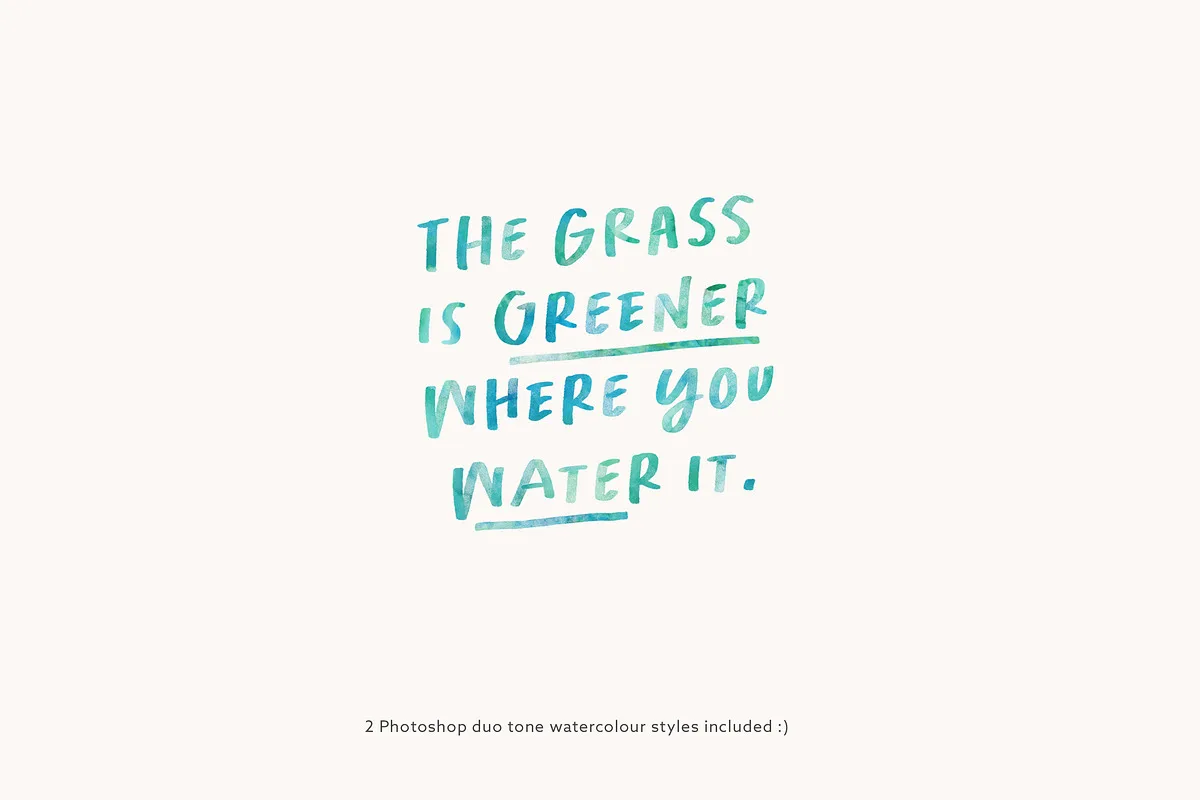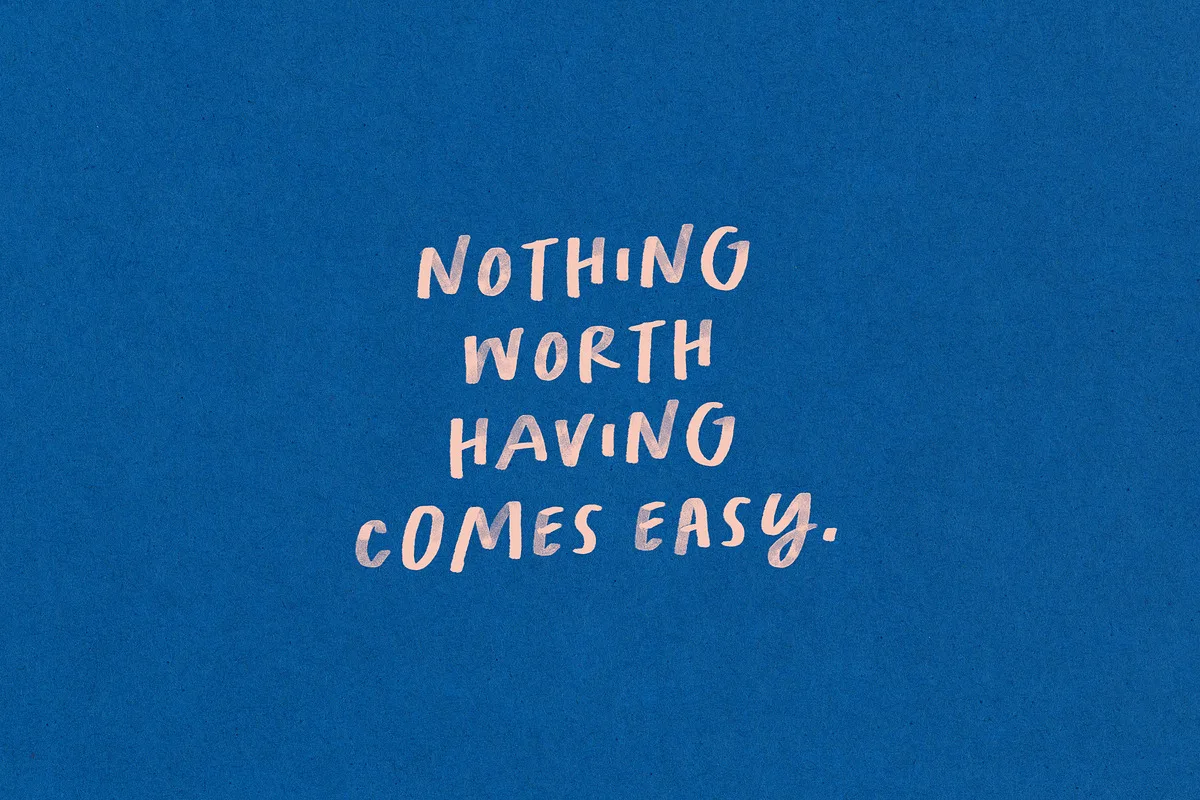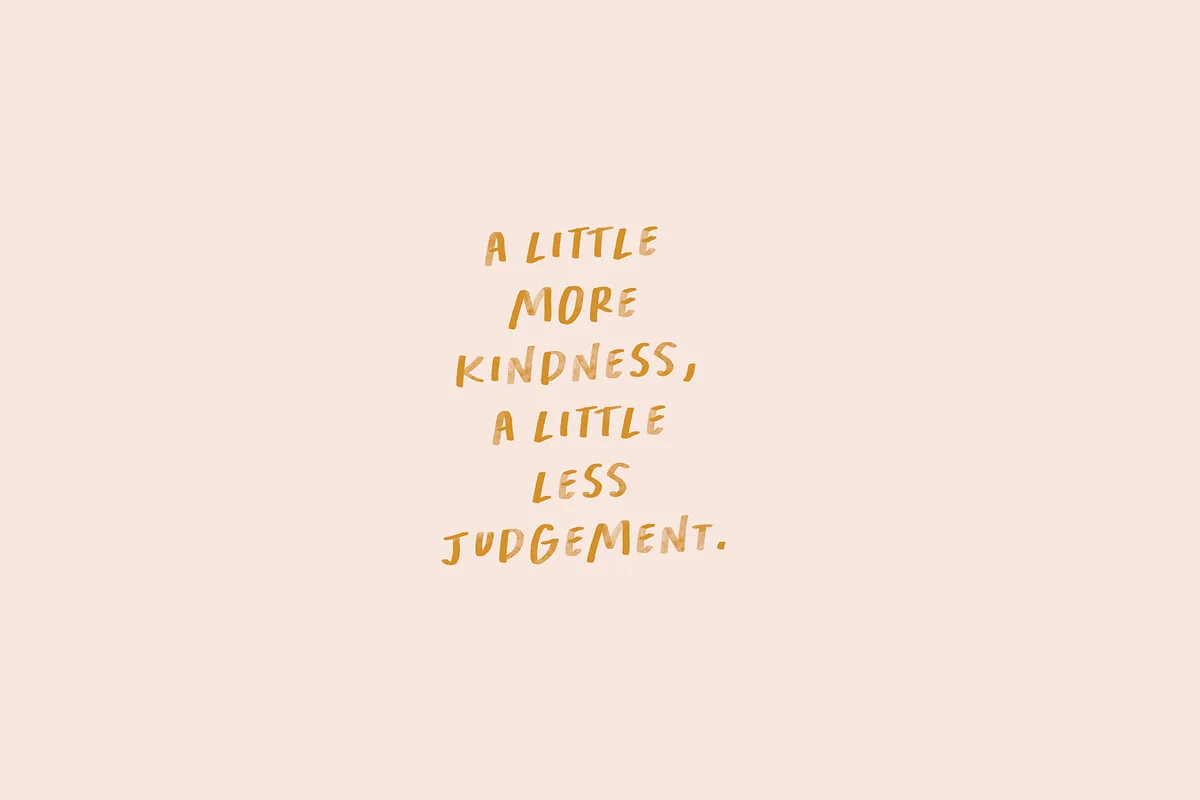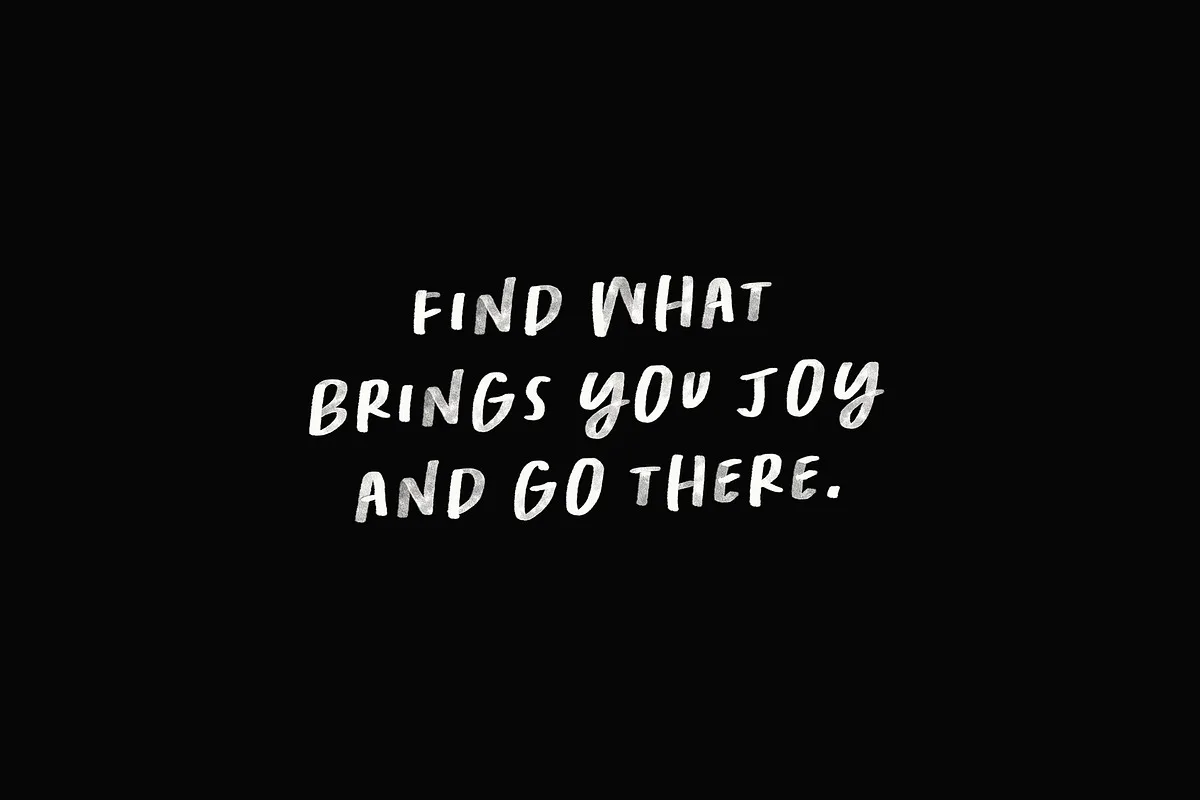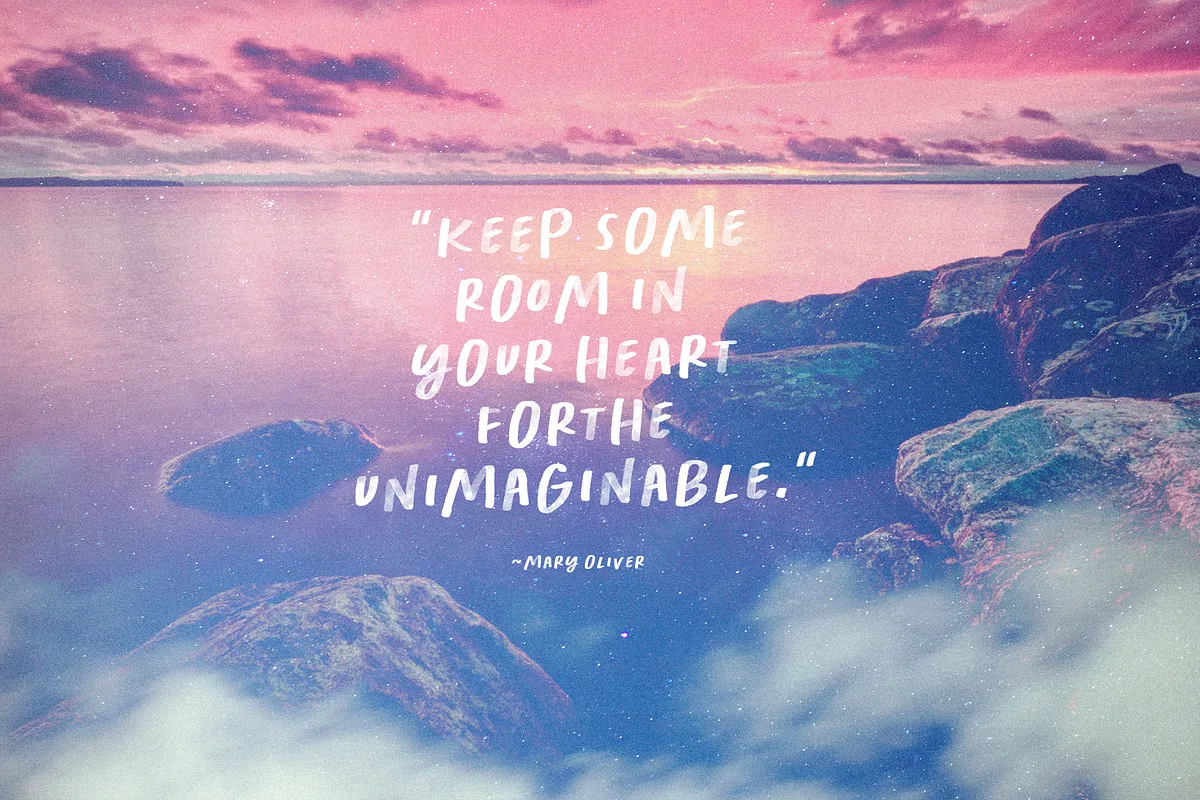
Kindness Matters is a quirky All-caps watercolor SVG font – with a built-in watercolor texture that looks so very real. For those of you without either of those – the regular font is also included. Perfect for quotes, posters, flyers, social media posts and so much more.